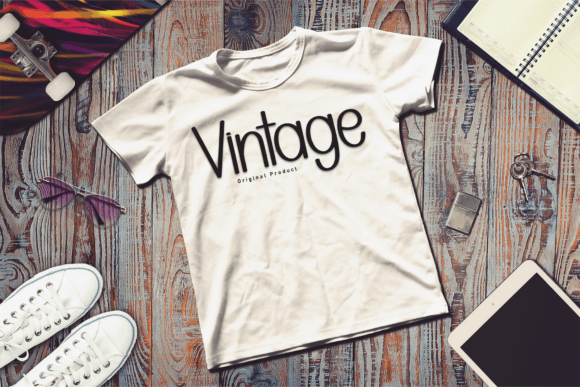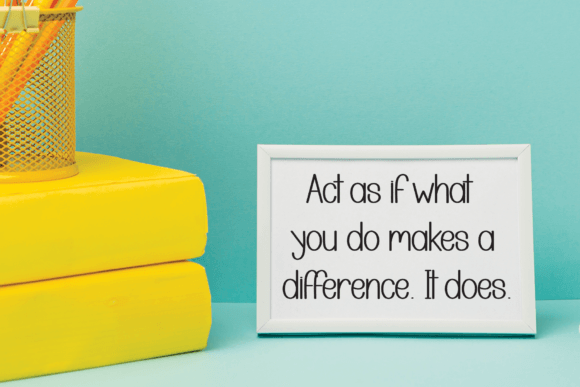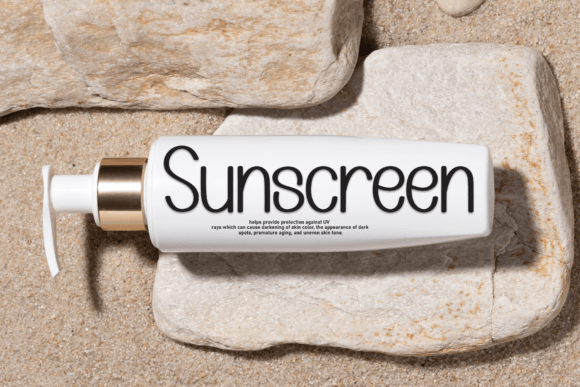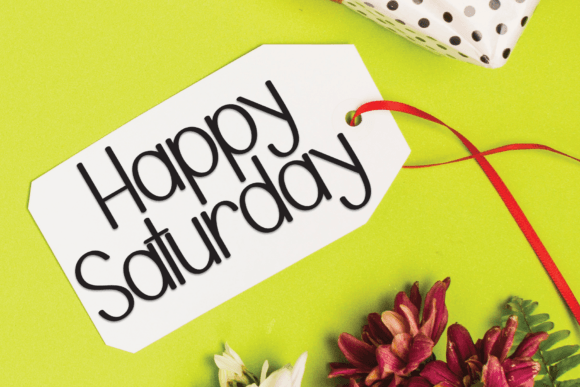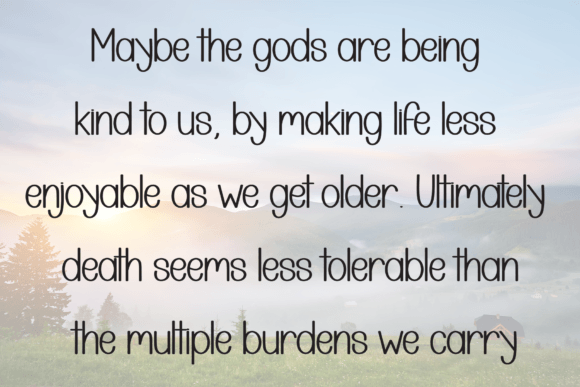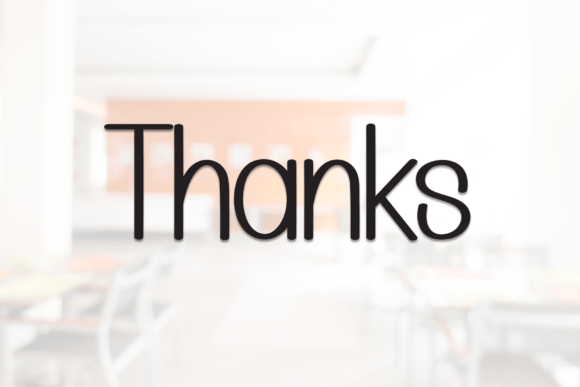
Introducing Back School Font: The Ultimate Handwritten Display Font for Your Creative Projects
Are you tired of using the same old fonts for your designs? Do you want to add a touch of personality and whimsy to your creations? Look no further than Back School Font, a delightful and approachable handwritten display font that’s sure to charm. In this article, we’ll dive into the world of Back School Font, exploring its features, benefits, and uses, and show you how it can elevate your designs to the next level.
A Charming and Sweet Handwritten Display Font
Back School Font is a beautifully crafted handwritten display font that’s designed to exude sweetness and friendliness. Its charming and playful aesthetic makes it perfect for a wide range of creative projects, from wedding invitations and cards to social media graphics and branding materials. With Back School Font, you can add a dash of fun and personality to your designs, making them stand out from the crowd.
Key Features of Back School Font
- Handwritten display font: Back School Font is a carefully crafted handwritten display font that’s designed to make a statement.
- Charming and sweet aesthetic: Its playful and whimsical design makes it perfect for adding a touch of personality to your creations.
- Approachable and friendly: Back School Font is designed to be friendly and approachable, making it perfect for designs that require a personal touch.
- Easy to use: With its clean and simple design, Back School Font is easy to use and pairs well with a wide range of other fonts.
Perfect for a Wide Range of Creative Projects
Back School Font is a versatile font that’s perfect for a wide range of creative projects, including:
- Wedding invitations: Add a touch of romance and whimsy to your wedding invitations with Back School Font.
- Cards and stationery: Create heartfelt and personalized cards and stationery with this beautiful handwritten display font.
- Social media graphics: Add a dash of personality to your social media graphics and make them stand out from the crowd.
- Branding materials: Use Back School Font to create unique and memorable branding materials, such as logos and business cards.
How Back School Font Can Enhance Your Designs
Back School Font is more than just a font – it’s a design tool that can help you create captivating and engaging designs. Here are just a few ways it can enhance your creations:
- Adds a playful touch: Back School Font adds a playful and whimsical touch to your designs, making them more engaging and fun.
- Creates a personal connection: Its friendly and approachable aesthetic helps create a personal connection with your audience.
- Elevates your brand: Use Back School Font to create unique and memorable branding materials that will help elevate your brand.
- Easy to pair with other fonts: Back School Font pairs well with a wide range of other fonts, making it easy to use in a variety of design contexts.
Tips for Using Back School Font
Here are a few tips for getting the most out of Back School Font:
- Use it as a display font: Back School Font is designed to be used as a display font, so use it to add a touch of personality to your headings and titles.
- Pair it with a simple font: Pair Back School Font with a simple font to create a striking contrast and add visual interest to your designs.
- Experiment with different colors: Back School Font looks great in a wide range of colors, so don’t be afraid to experiment and find the perfect color for your design.
In conclusion, Back School Font is a delightful and approachable handwritten display font that’s perfect for adding a touch of personality and whimsy to your designs. With its charming and sweet aesthetic, it’s ideal for a wide range of creative projects, from wedding invitations and cards to social media graphics and branding materials. So why not give Back School Font a try and see how it can enhance your creations?